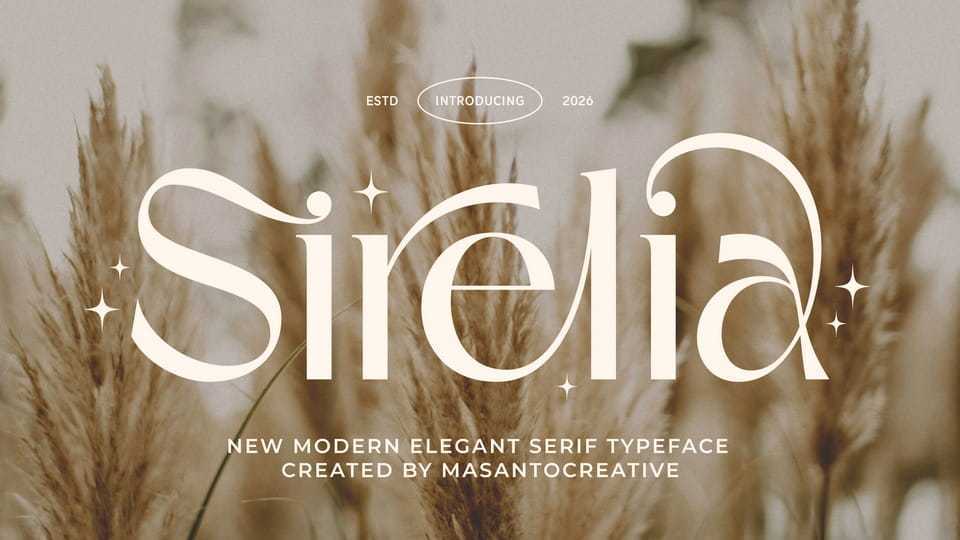
Download Sirelia font, a modern elegant serif typeface designed to express refinement, softness, and timeless beauty. Crafted with graceful curves, balanced contrast, and subtle organic details